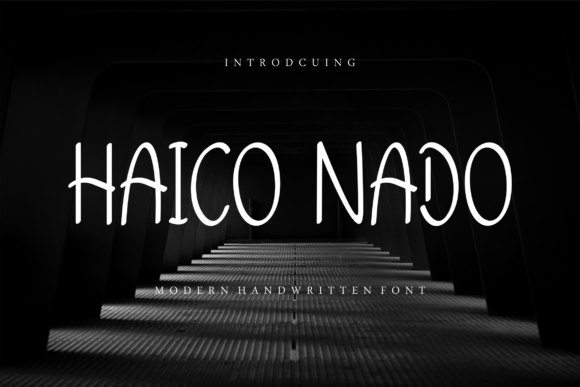
Introduction to Haico Nado Font
Haico Nado is an authentic handwritten font suitable for any branding project like logos, t-shirt printing, esports, and many more.
It will look outstanding in a wide range of contexts .
Key Features of Haico Nado Font